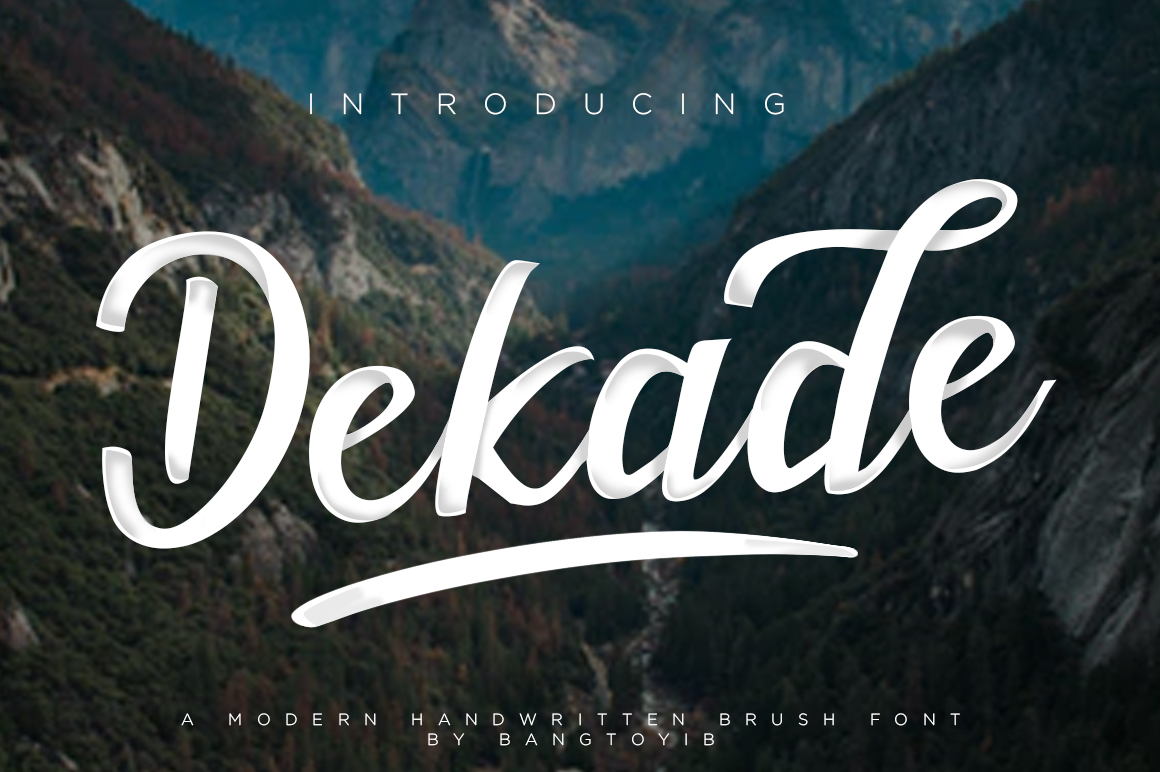
Add authentic hand-brushed character to your projects with Dekade Brush — a modern, hand-brush display typeface that works beautifully for bold headlines and expressive branding. This free commercial font includes swash alternates for more personality and flair.
- Authentic hand-brush style with a modern feel
- Best used as a display or headline font
- Ideal for logos, logotypes, branding, wedding invites, fashion, labels, book covers, t-shirts, social posts (Instagram), and more
- Includes swash alternates for decorative use
- Bold, textured strokes with natural brush movement
- Swash glyphs for stylized beginnings/endings and decorative ligatures
- Works well paired with clean sans-serifs for contrast